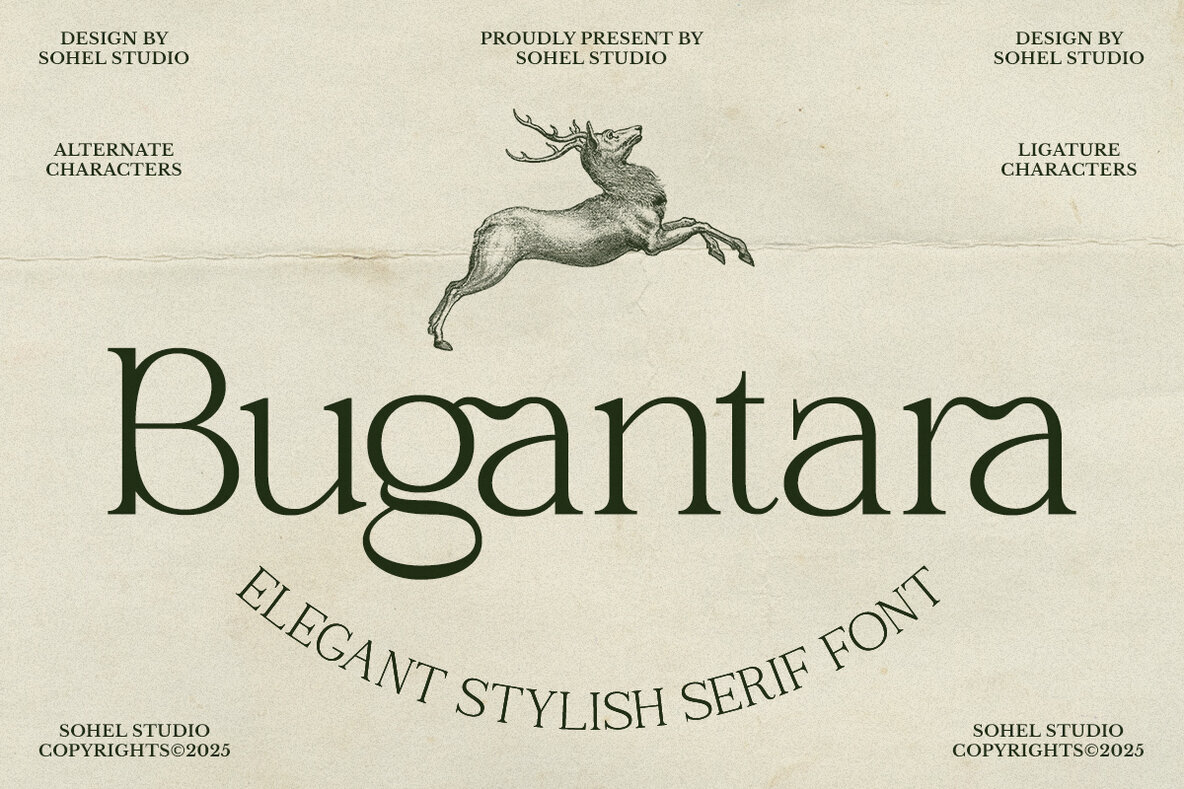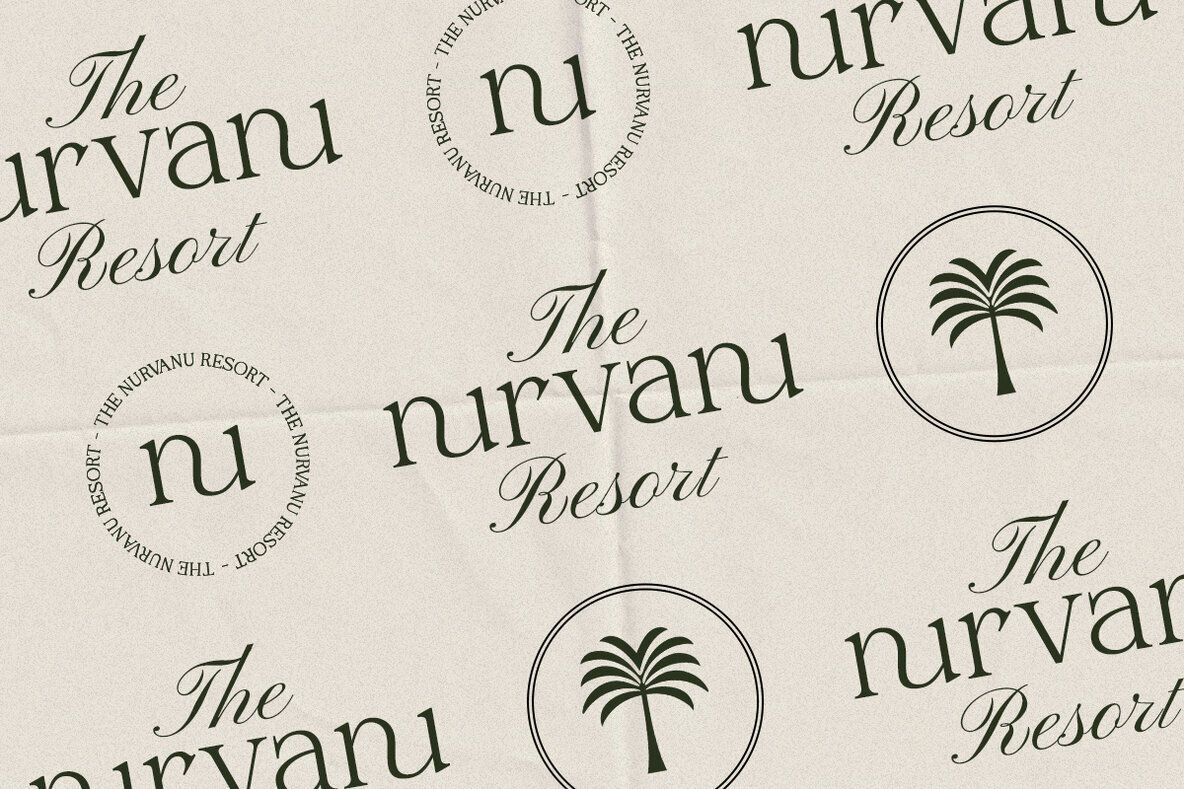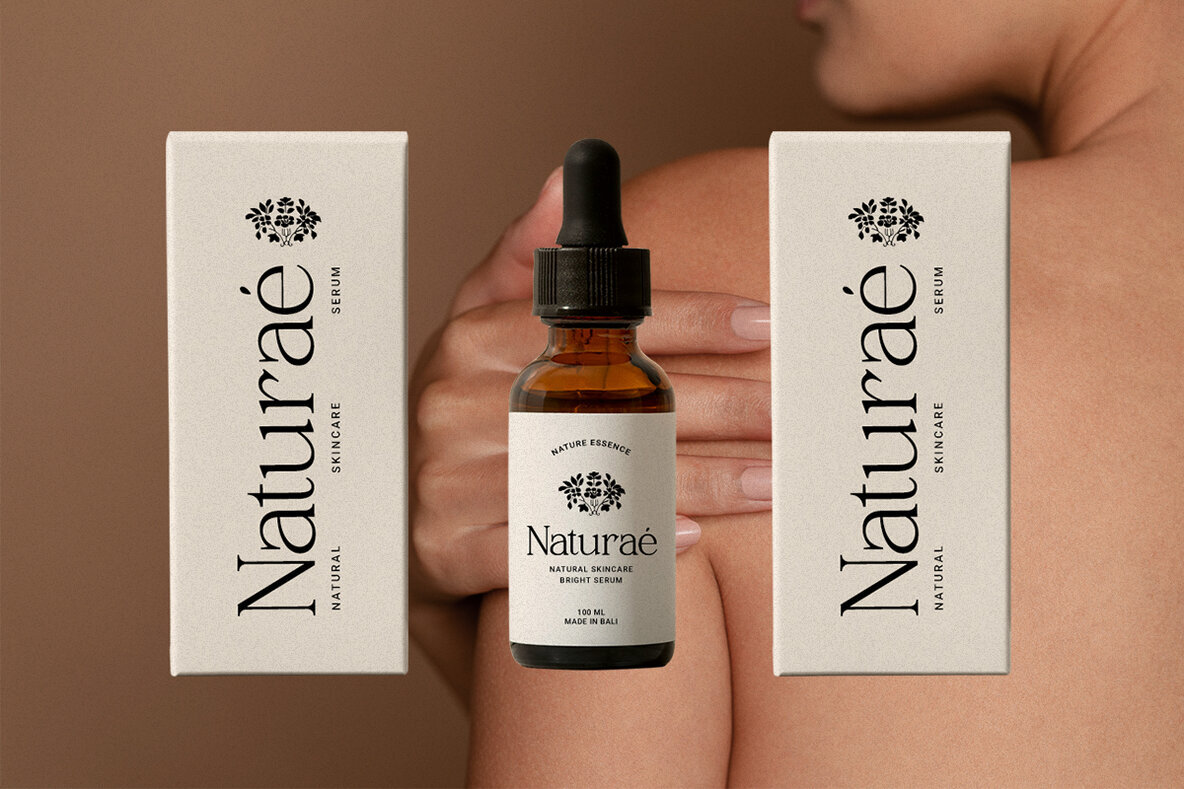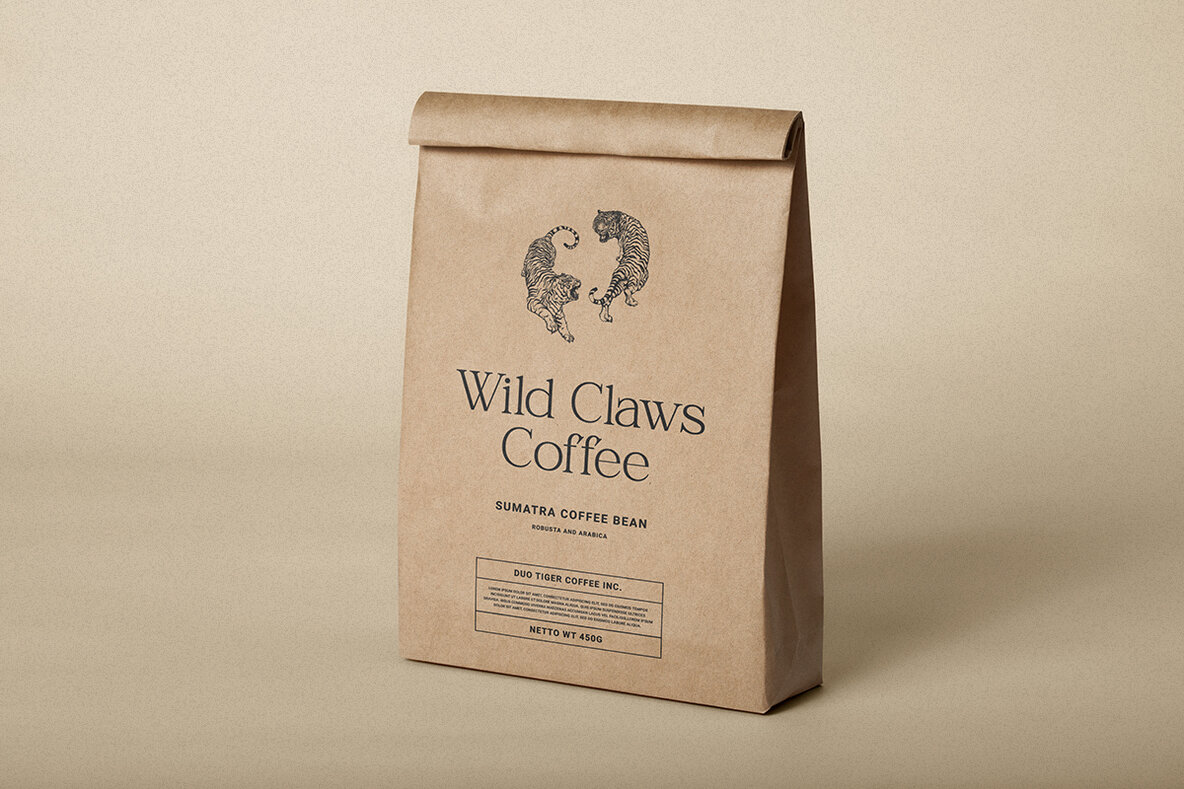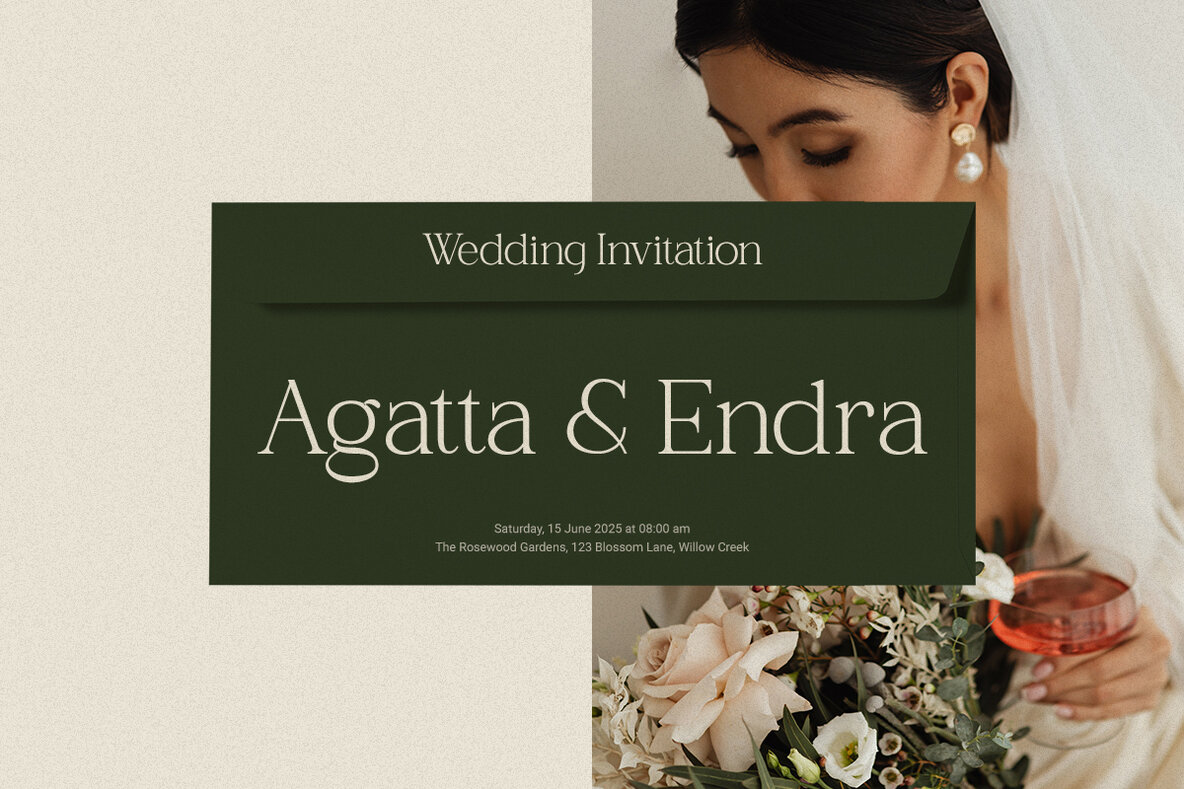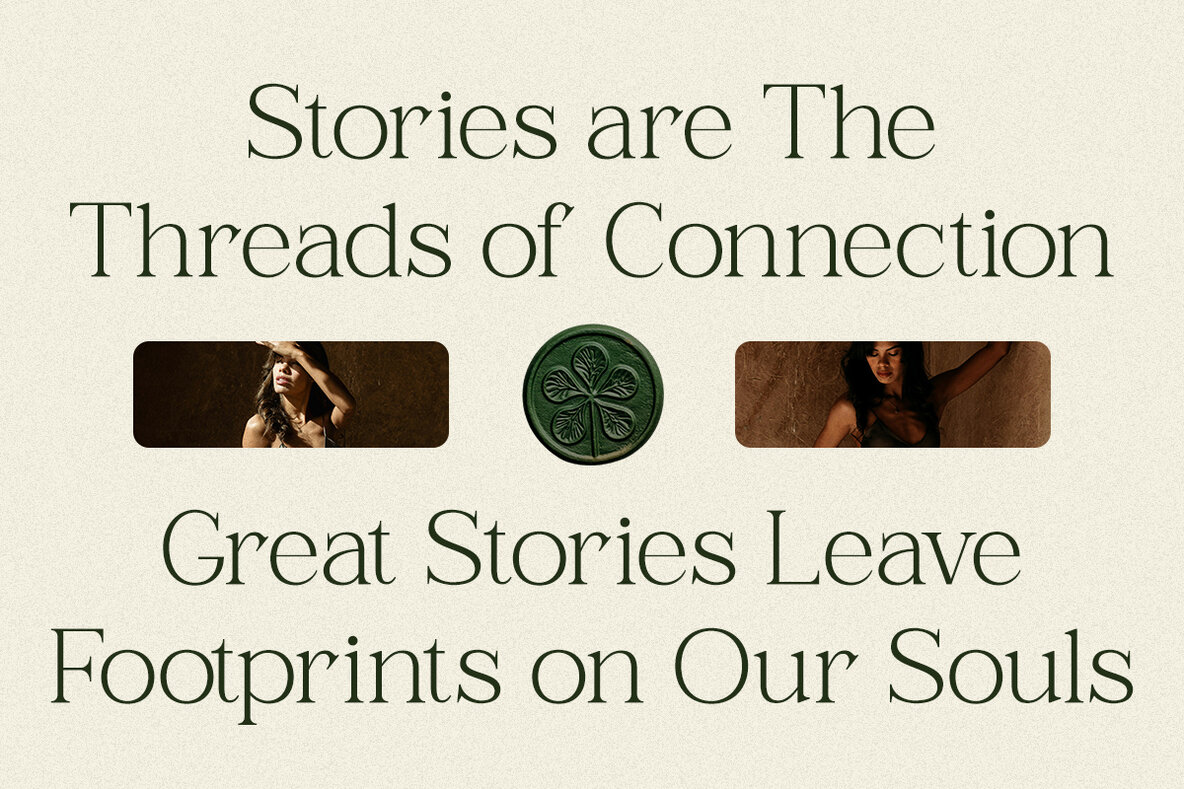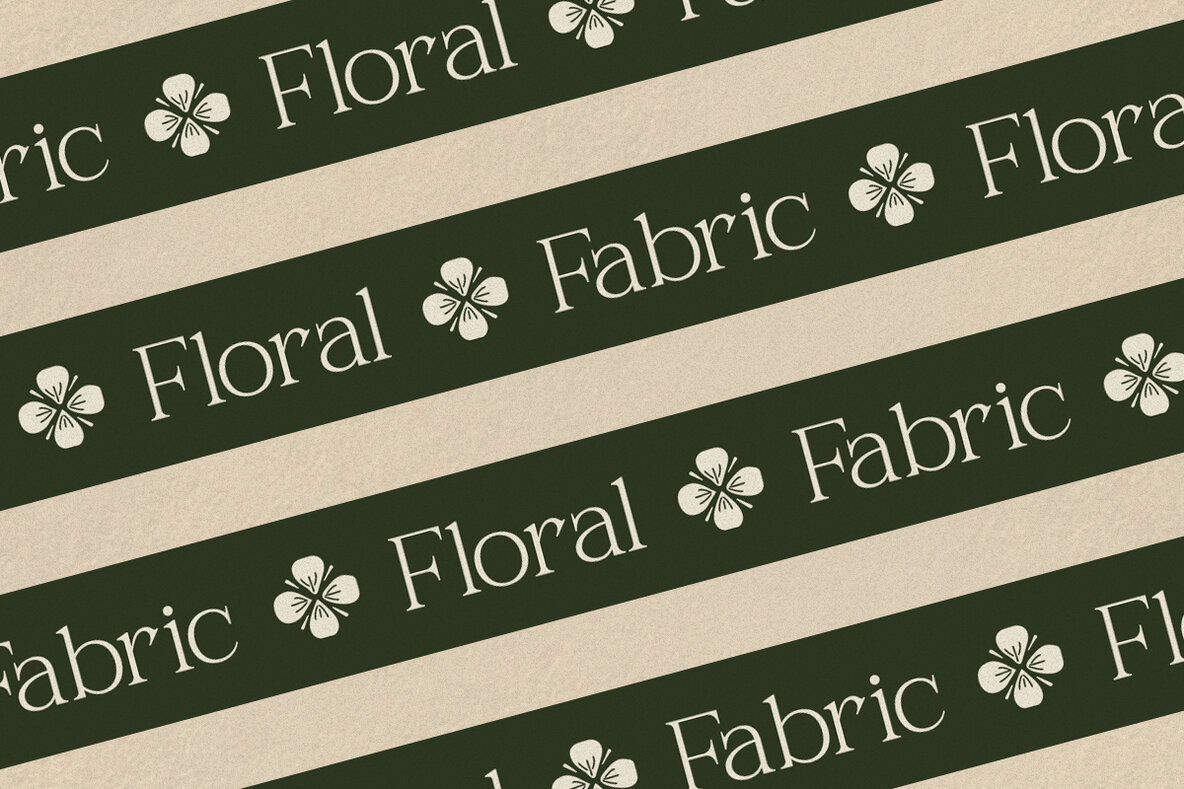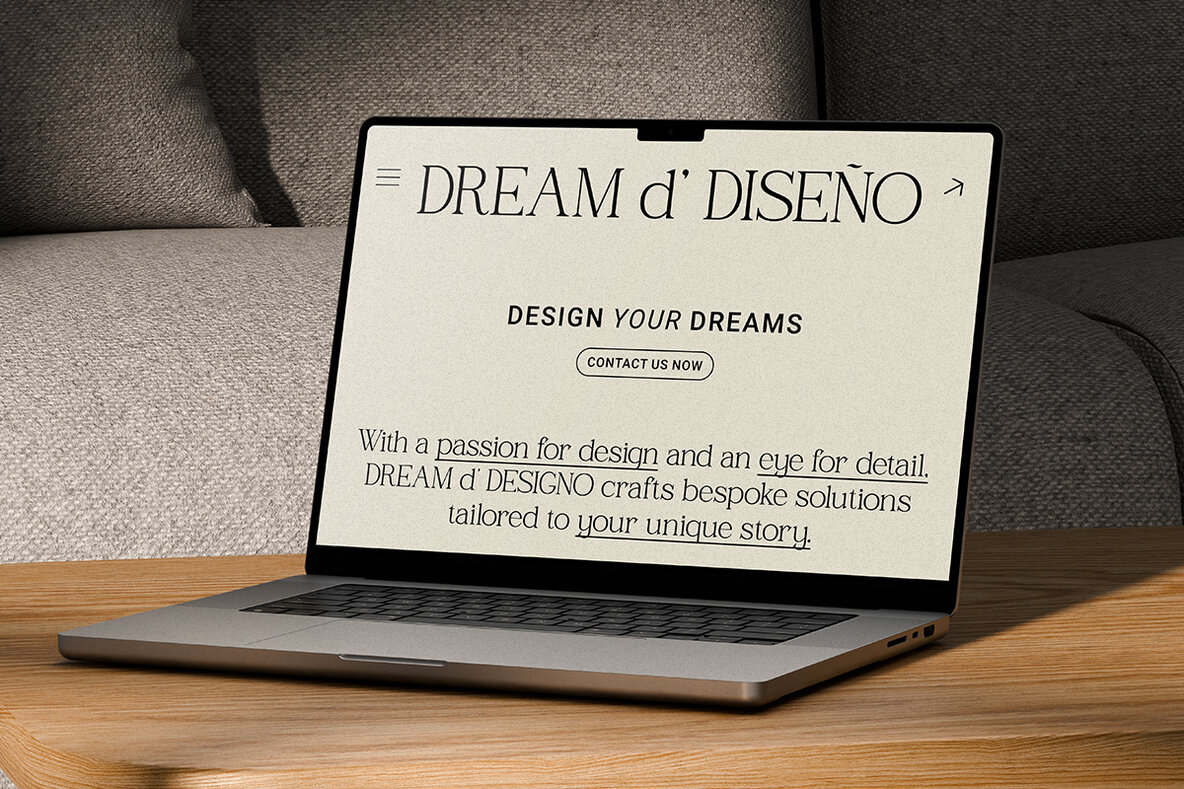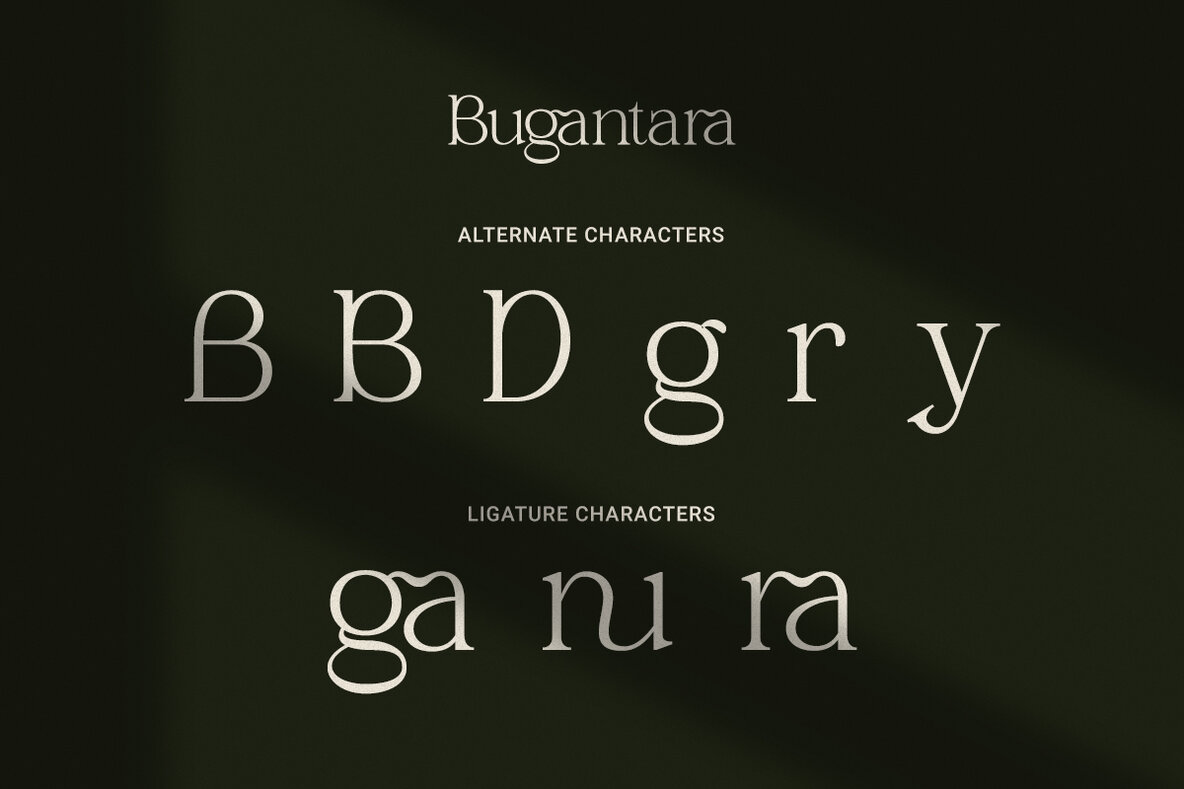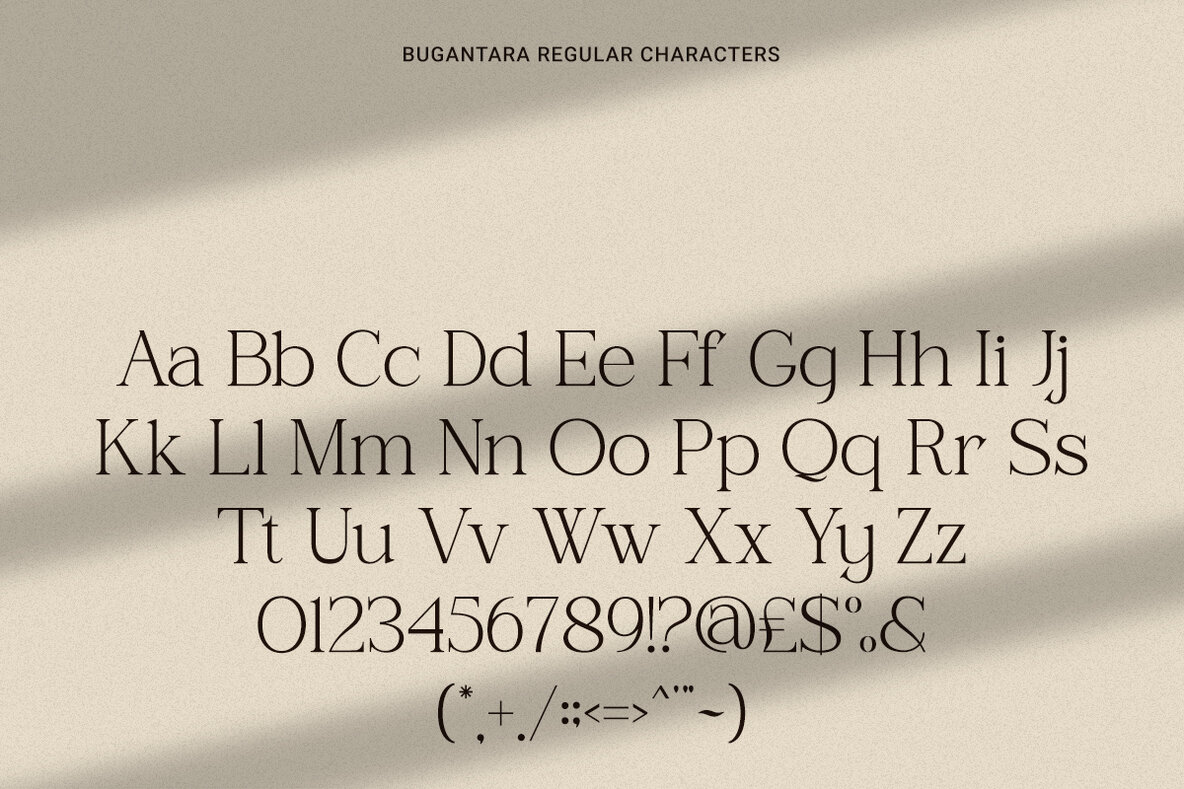
Bugantara captures the essence of historic craftsmanship balanced with contemporary restraint, making it an ideal choice for designers seeking depth in their typography. Featuring high-contrast strokes and fluid alternate characters, this font adds texture and a modern silhouette to any design project. Every letter in Bugantara is crafted with intention, reflecting subtle curves, graceful terminals, and elegant ligatures that add an inherent rhythm. The distinctive sculpted g and a alternates infuse artisanal flair while maintaining editorial strength. This font thrives as comfortably in literary journals as on luxury skincare labels, perfectly tailored for those who view typography as an expression of both function and feeling. Bugantara invites precision with a touch of poetry, seamlessly fitting those between the realms of heritage aesthetics and modern minimalism. Ideal for boutique editorials, wellness brands, wine labels, or artisan retail projects, its timeless elegance anchors your designs while fostering creativity.Bugantara: A Display Serif Bridging Heritage and Modernity